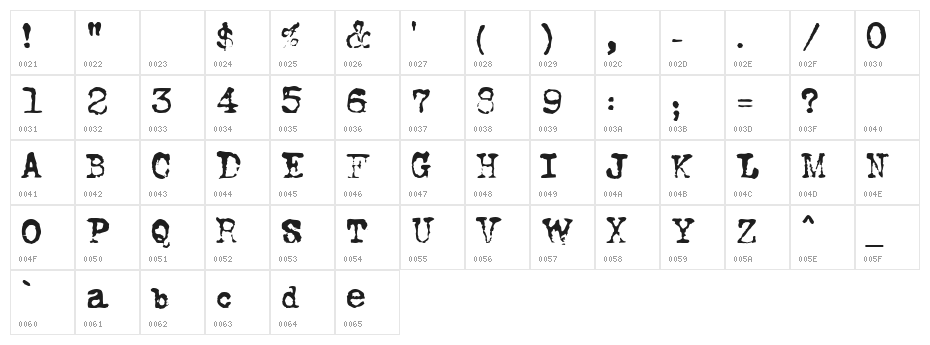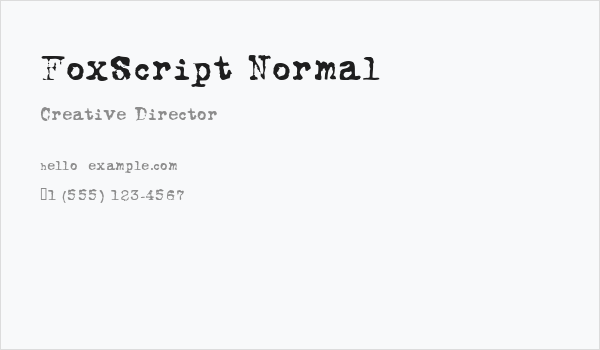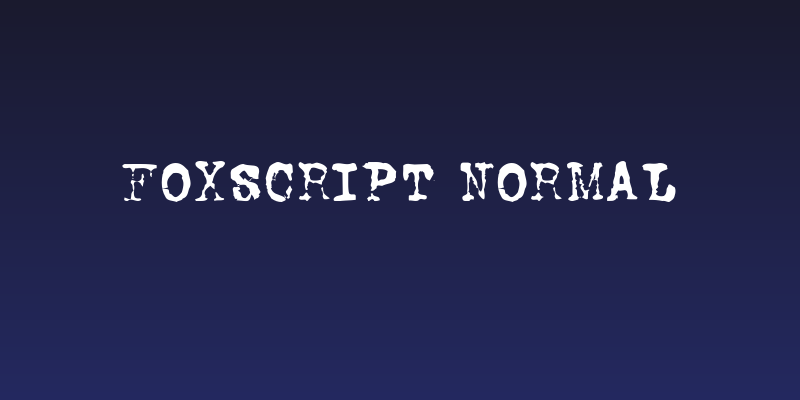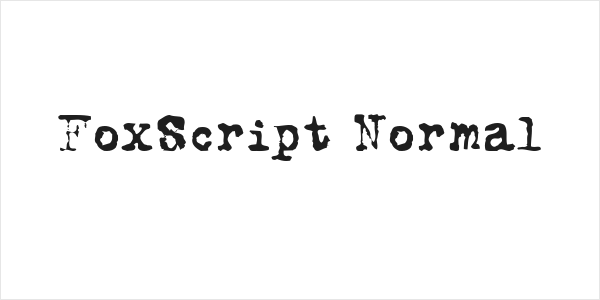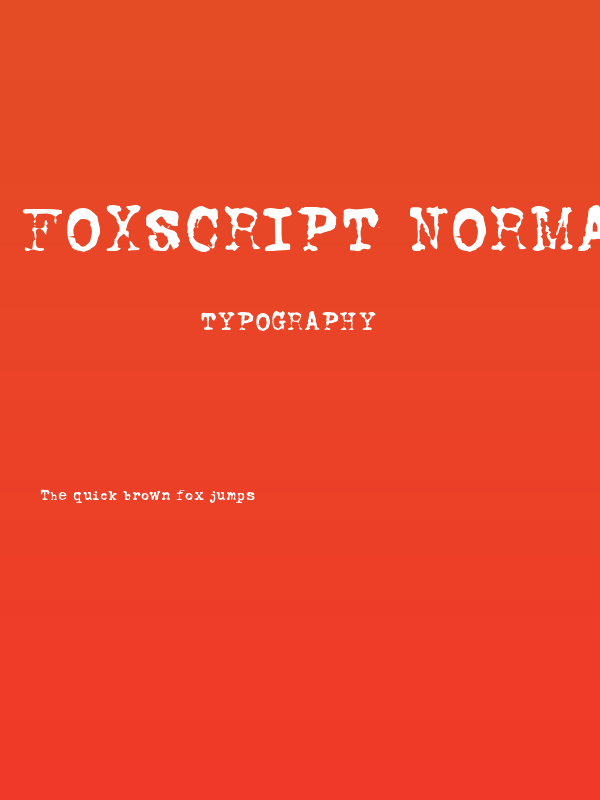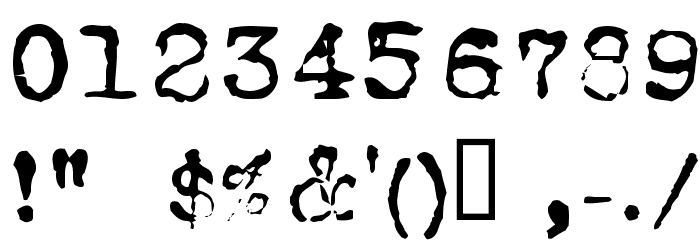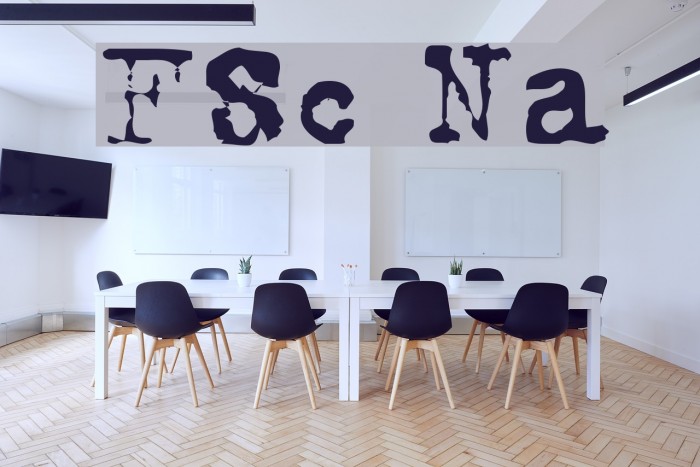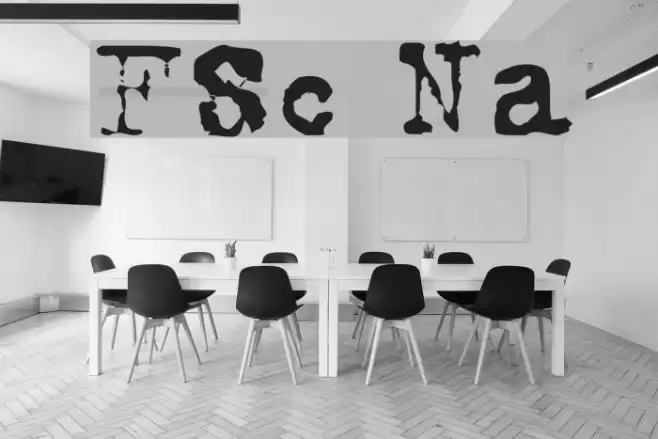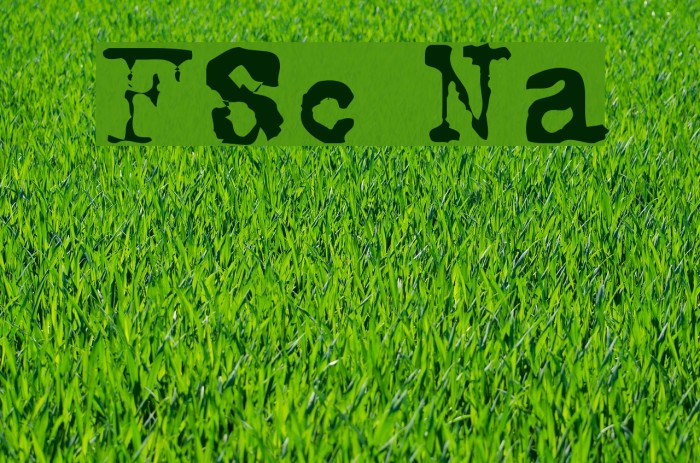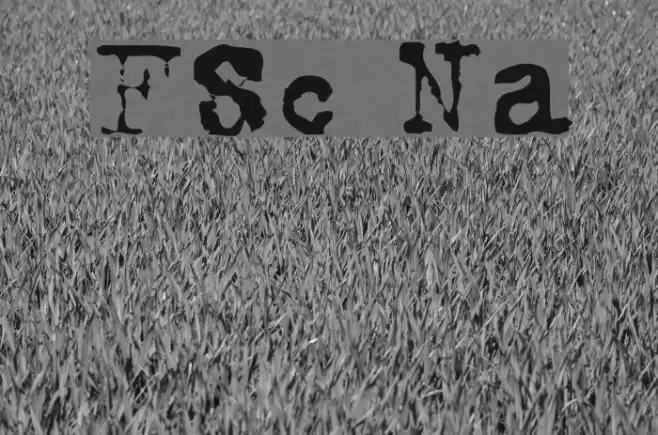
FoxScript Normal Font
FoxScript Normal Description
This font features a distressed, grunge style with irregular edges and a textured appearance, giving it a worn and vintage look. The characters are bold with a rough, uneven texture that suggests a hand-crafted or stamped effect. The uppercase and lowercase letters maintain a consistent style, with numbers and special characters following the same distressed aesthetic. This font is ideal for projects that require a rugged, edgy feel, such as posters, album covers, or themed events. Its unique appearance makes it stand out, adding character and personality to any design.
| Overall Style | Vintage |
| Proposed Projects | Posters, album covers, themed events, vintage designs. |